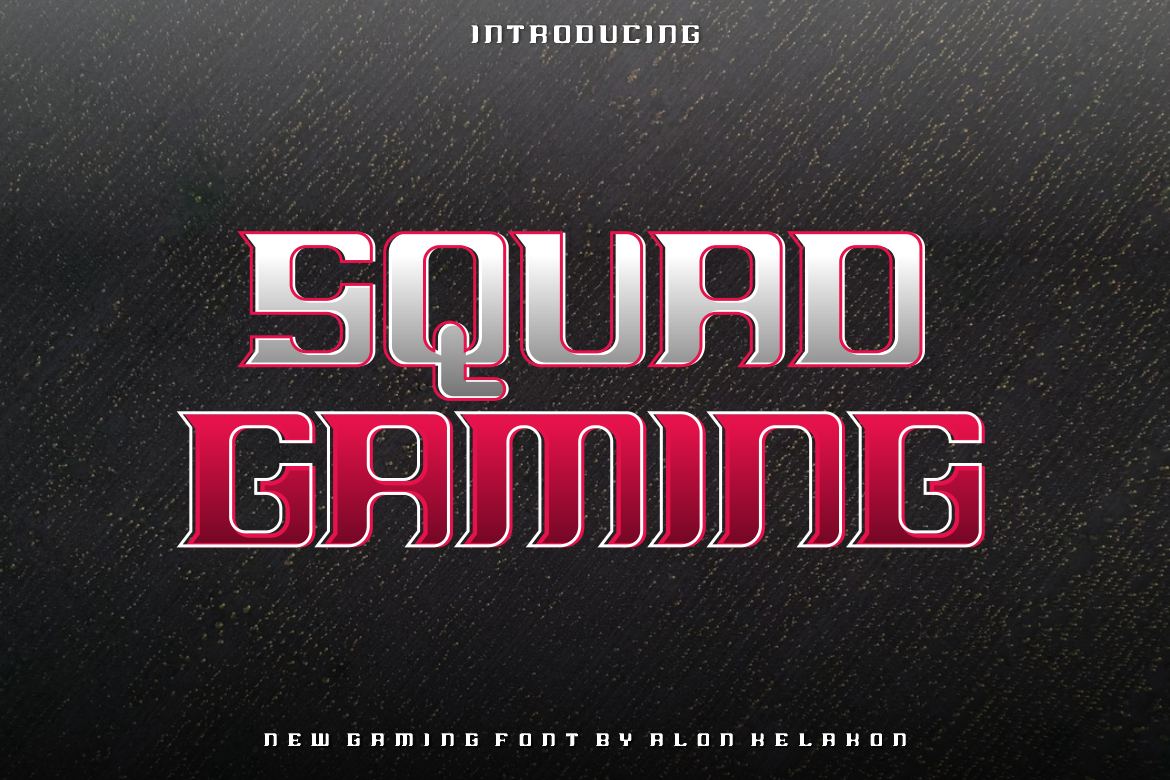
Squad Gaming Font
Squad Gaming Font Font is unique . Ready to use for your design like labeling, clothing, movie sceen, poster, movie title, gigs, album covers, logos, and much more.